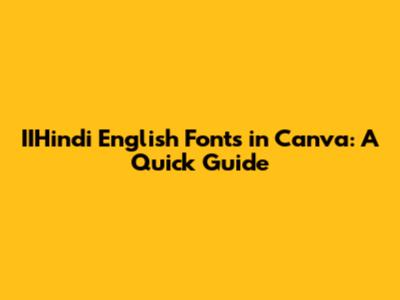
Hey guys! Ever found yourself needing that perfect IIHindi touch for your English text in Canva? Well, you’re in the right place! Let’s dive into how you can jazz up your designs with fonts that give off that unique IIHindi vibe, all within the friendly confines of Canva.
Understanding IIHindi Typography
Before we jump into Canva, let’s quickly understand what makes IIHindi typography special. IIHindi fonts often blend elements of both Indian and English scripts, creating a unique visual style. This can include distinct letterforms, specific stroke patterns, and an overall aesthetic that resonates with cultural contexts. When we talk about using an "IIHindi type English font," we're essentially looking for fonts that capture this essence while still being readable and appealing in English text. It's about finding fonts that have a certain flair or design element that hints at Indian aesthetics without sacrificing clarity. Many designers use these fonts to add an international or cross-cultural touch to their designs, making them suitable for projects that aim to connect with a diverse audience. For example, a travel agency promoting tours to India might use such fonts to evoke a sense of place and culture right from the promotional materials. Similarly, educational resources that aim to teach about Indian culture could use these fonts to enhance the visual appeal and cultural relevance of their content. Understanding the nuances of IIHindi typography helps you select the most appropriate fonts for your project, ensuring that your message is not only seen but also felt in the way you intend. Remember, the goal is to enhance your design with a touch of cultural richness without compromising the readability or overall aesthetic appeal. Experimenting with different fonts and seeing how they interact with your design elements can lead to surprising and delightful results. Always consider your audience and the context in which the font will be used to ensure that it resonates positively and effectively. By keeping these principles in mind, you can successfully incorporate IIHindi-inspired fonts into your Canva projects, creating designs that are both visually appealing and culturally sensitive.
Finding the Right Fonts in Canva
Canva has a treasure trove of fonts, but finding that perfect IIHindi-esque English font can take a bit of digging. Here’s how to navigate: Start by using Canva's search bar. Type in keywords like "Indian", "ethnic", "cultural", or even specific script names if you know them (like Devanagari-inspired). Don't limit yourself to just one search term; try variations to see different results. Another great approach is to browse through font categories. Canva organizes fonts into categories such as Serif, Sans Serif, Script, and Decorative. Look within the Decorative category, as this is often where you'll find fonts with unique stylistic elements that might resemble IIHindi typography. Keep an eye out for fonts with unusual curves, thick-and-thin strokes, or unique serifs that set them apart from standard English fonts. Sometimes, the best way to discover new fonts is by exploring pre-designed templates. Canva offers a wide range of templates for various purposes, and designers often use interesting font combinations in these templates. Browse through templates that align with your project's theme or style, and take note of any fonts that catch your eye. You can then use the font name in your own designs. Canva also allows you to upload your own fonts if you have a specific IIHindi-inspired English font that you want to use. This is a great option if you've purchased a font from an external source or if you've created your own custom font. Before using any font in your design, make sure to test it out with different text sizes and styles. A font might look great in a large headline but be difficult to read in smaller body text. Experiment with different font weights (e.g., regular, bold, italic) and spacing options to see how the font performs in various contexts. Pay attention to the overall aesthetic of the font and how it complements your design. Does it match the tone and message of your project? Does it create the desired visual impact? By carefully considering these factors, you can ensure that you choose the right font to enhance your design and effectively communicate your message. Finding the right font is an iterative process, so don't be afraid to experiment and try different options until you find the perfect fit. Happy designing!
Utilizing Font Combinations
One awesome trick is to combine a standard English font with a more IIHindi-flavored one. Use the latter for headings or accents to add that special touch without sacrificing readability. Font pairing is an art, and when done well, it can elevate your design to a whole new level. The key is to find fonts that complement each other, creating a harmonious and visually appealing composition. When pairing an IIHindi-inspired font with a standard English font, consider using the IIHindi font for headings, subheadings, or other prominent text elements. This allows you to add a touch of cultural flair without compromising the readability of the main body text. For the body text, choose a clean and legible English font that doesn't compete with the IIHindi font. Fonts like Open Sans, Lato, or Montserrat are excellent choices as they are versatile and easy to read in various sizes. When selecting an IIHindi font for pairing, pay attention to its weight, style, and overall aesthetic. If the IIHindi font is bold and decorative, pair it with a simpler, more understated English font. Conversely, if the IIHindi font is more subtle, you can pair it with an English font that has a bit more personality. Experiment with different font sizes and spacing to create visual hierarchy and balance. Use larger font sizes for headings and smaller font sizes for body text. Adjust the line height and letter spacing to improve readability and create a more visually appealing layout. Pay attention to the overall tone and message of your design. The font pairing should reflect the theme and purpose of your project. For example, if you're designing a travel brochure for India, you might choose an IIHindi font that evokes a sense of tradition and culture, paired with a clean and modern English font to convey a sense of professionalism and reliability. Don't be afraid to experiment with different font combinations until you find the perfect fit. Use Canva's font preview feature to see how the fonts look together before committing to a specific pairing. You can also create mockups of your design to get a better sense of how the font pairing will look in the final product. Remember, the goal is to create a font pairing that is both visually appealing and functional. The fonts should complement each other, enhance the overall design, and effectively communicate your message to the audience. By following these tips, you can master the art of font pairing and create stunning designs that stand out from the crowd.
Customizing Your Text
Canva lets you tweak fonts to your heart's content. Experiment with letter spacing, line height, and even adding shadows or outlines to make your IIHindi-inspired text pop! Customizing your text in Canva goes beyond simply choosing a font; it involves fine-tuning various aspects of the text to create a unique and visually appealing look. One of the most effective ways to customize your text is by adjusting the letter spacing. Increasing the letter spacing can give your text a more airy and spacious feel, while decreasing it can make the text appear more compact and dense. Experiment with different letter spacing values to see what works best for your chosen font and design. Adjusting the line height, also known as leading, is another important aspect of text customization. Increasing the line height can improve the readability of your text, especially for longer paragraphs. Decreasing the line height can create a more condensed and visually striking effect, particularly for headings and titles. Canva also allows you to add various effects to your text, such as shadows, outlines, and glows. These effects can add depth, dimension, and visual interest to your text, making it stand out from the background. Experiment with different shadow colors, outline thicknesses, and glow intensities to create unique and eye-catching text effects. In addition to these basic customization options, Canva also offers more advanced features such as kerning, which allows you to adjust the spacing between individual letters. This can be particularly useful for fine-tuning the appearance of your text and ensuring that it looks perfectly balanced. You can also use Canva's text warping tools to create curved, arched, or otherwise distorted text effects. This can add a playful and whimsical touch to your designs, making them more memorable and engaging. When customizing your text, it's important to consider the overall style and tone of your design. The text customizations should complement the other elements of your design and help to create a cohesive and visually appealing composition. Don't be afraid to experiment with different customization options until you find the perfect look for your text. Use Canva's preview feature to see how the changes you make affect the overall appearance of your design. Remember, the goal of text customization is to enhance the readability, visual appeal, and overall impact of your text. By mastering these techniques, you can create text that is not only informative but also visually stunning.
Examples of IIHindi-Inspired Fonts
While Canva might not explicitly label fonts as "IIHindi," look for fonts with: Unique curves and swashes, a handcrafted feel, or a slightly vintage aesthetic. These often capture the essence you're after. When searching for IIHindi-inspired fonts, it's helpful to have a few specific examples in mind. While Canva's font library is constantly evolving, there are certain characteristics to look for that can help you identify fonts with an IIHindi flair. Fonts with unique curves and swashes often evoke a sense of traditional Indian calligraphy and design. Look for fonts that have flowing lines, decorative flourishes, and a distinctive calligraphic style. These fonts can add a touch of elegance and sophistication to your designs. Fonts with a handcrafted feel can also capture the essence of IIHindi typography. Look for fonts that have a slightly rough or imperfect appearance, as if they were created by hand. These fonts can add a sense of authenticity and warmth to your designs. Fonts with a slightly vintage aesthetic can also be reminiscent of IIHindi typography. Look for fonts that have a retro or antique appearance, as if they were inspired by old Indian signage or posters. These fonts can add a touch of nostalgia and charm to your designs. In addition to these general characteristics, there are also some specific font families that are worth exploring. The Latha font family is a popular choice for its clean and legible design, as well as its subtle Indian influences. The Mangal font family is another good option, particularly for designs that require a more traditional and formal look. The Annapurna font family is a more modern and stylized option, with its unique curves and swashes. When selecting an IIHindi-inspired font, it's important to consider the overall style and tone of your design. The font should complement the other elements of your design and help to create a cohesive and visually appealing composition. Don't be afraid to experiment with different fonts until you find the perfect fit for your project. Use Canva's font preview feature to see how the fonts look together before committing to a specific choice. Remember, the goal is to find a font that captures the essence of IIHindi typography while still being readable and visually appealing in English text. By keeping these principles in mind, you can successfully incorporate IIHindi-inspired fonts into your Canva designs and create projects that are both visually stunning and culturally relevant.
Final Touches and Considerations
Always ensure your font choice is legible and fits the overall tone of your design. Don't overdo the IIHindi influence; subtlety can be key! As you put the final touches on your design, there are a few key considerations to keep in mind. First and foremost, always prioritize legibility. While it's important to choose a font that is visually appealing and fits the overall tone of your design, it's equally important to ensure that the text is easy to read. Avoid fonts that are too ornate or stylized, as these can be difficult to decipher, especially in smaller sizes. Pay attention to the letter spacing, line height, and contrast between the text and background to maximize readability. Another important consideration is the overall tone of your design. The font you choose should complement the message you're trying to convey and the emotions you want to evoke. For example, if you're designing a travel brochure for India, you might choose a font that is elegant, exotic, and culturally sensitive. On the other hand, if you're designing a business card for a modern tech company, you might choose a font that is clean, minimalist, and professional. When incorporating IIHindi-inspired elements into your design, it's important to exercise subtlety and restraint. Overdoing the IIHindi influence can make your design look cluttered, confusing, and even disrespectful. Instead, focus on incorporating subtle hints of Indian culture and aesthetics, such as using a unique IIHindi-inspired font for headings or adding a decorative border with traditional Indian motifs. Consider your target audience when making design choices. What are their cultural backgrounds, preferences, and expectations? Choose fonts and design elements that will resonate with your audience and effectively communicate your message. For example, if you're designing a website for a global audience, you might choose fonts and design elements that are universally understood and appreciated. Finally, always proofread your design carefully before publishing or printing it. Check for typos, grammatical errors, and any other mistakes that could detract from the overall quality of your work. Ask a friend or colleague to review your design as well, as a fresh pair of eyes can often catch errors that you might have missed. By following these final tips and considerations, you can ensure that your Canva designs are not only visually appealing but also effective, professional, and culturally sensitive.
Wrapping Up
And there you have it! Adding a touch of IIHindi to your English fonts in Canva is totally doable. Play around, experiment, and most importantly, have fun creating designs that stand out!